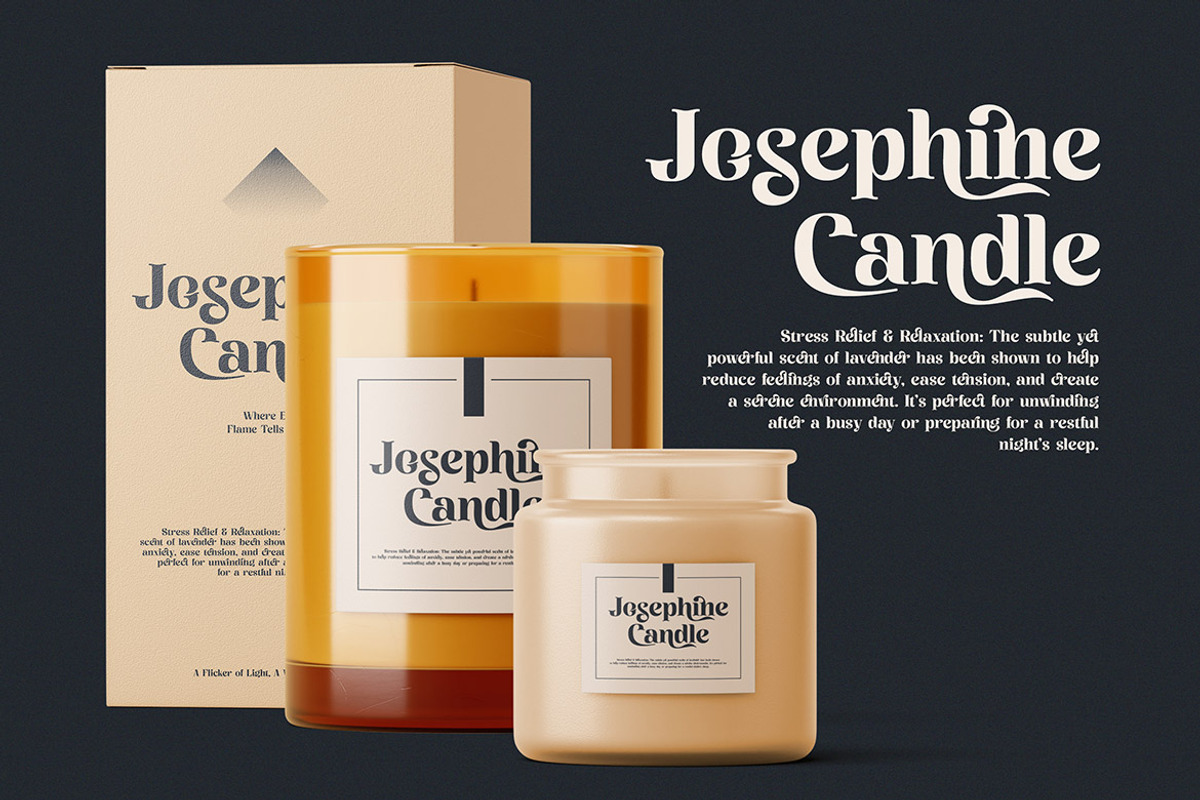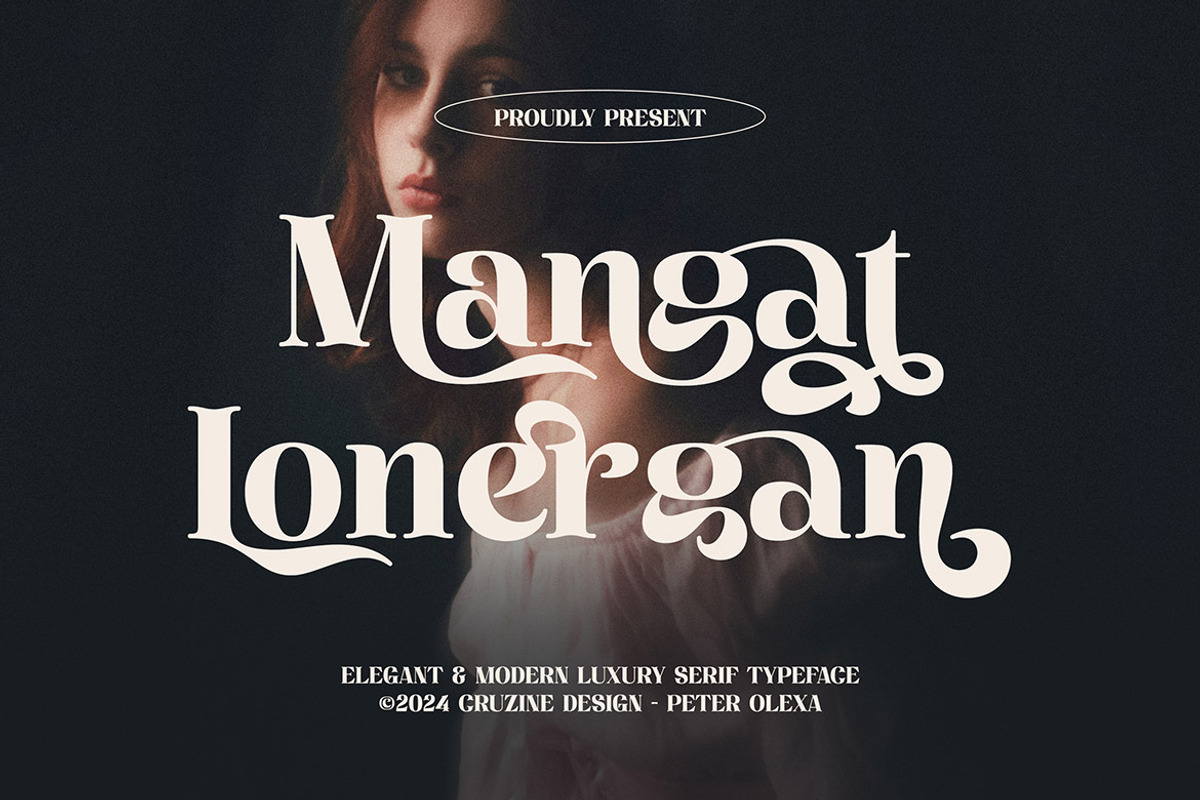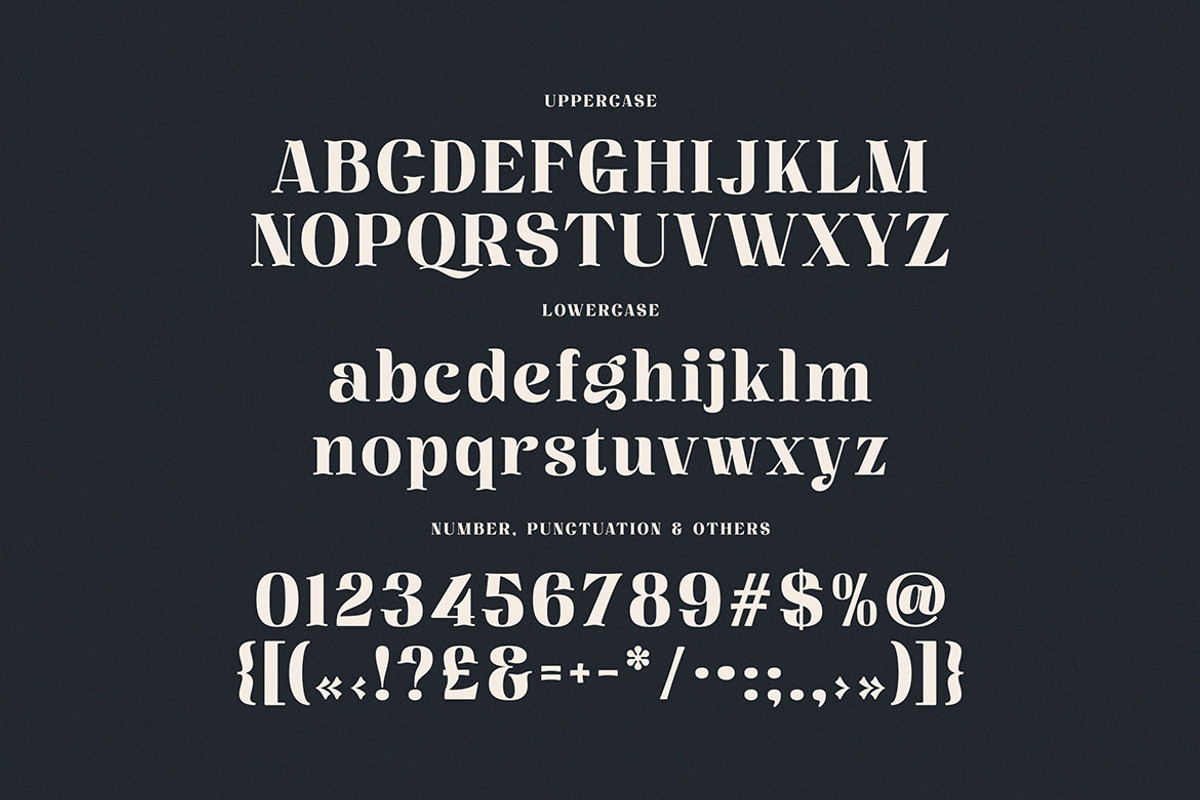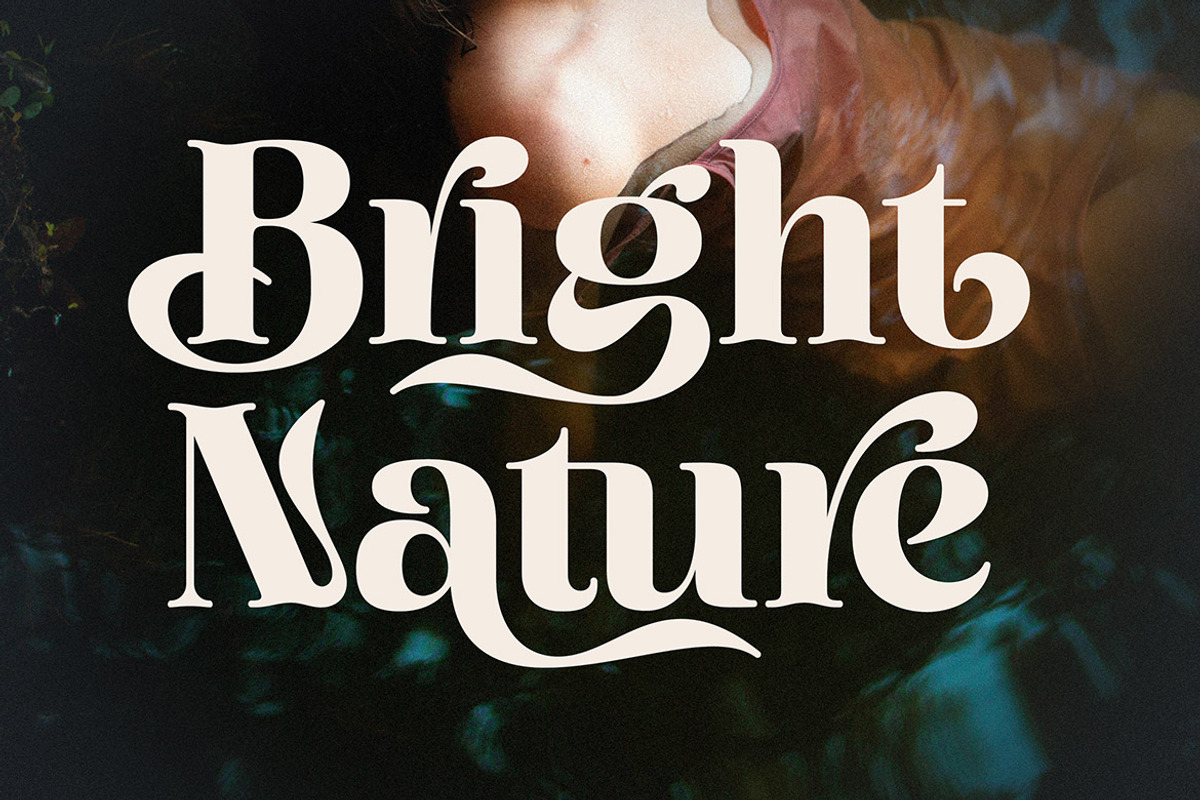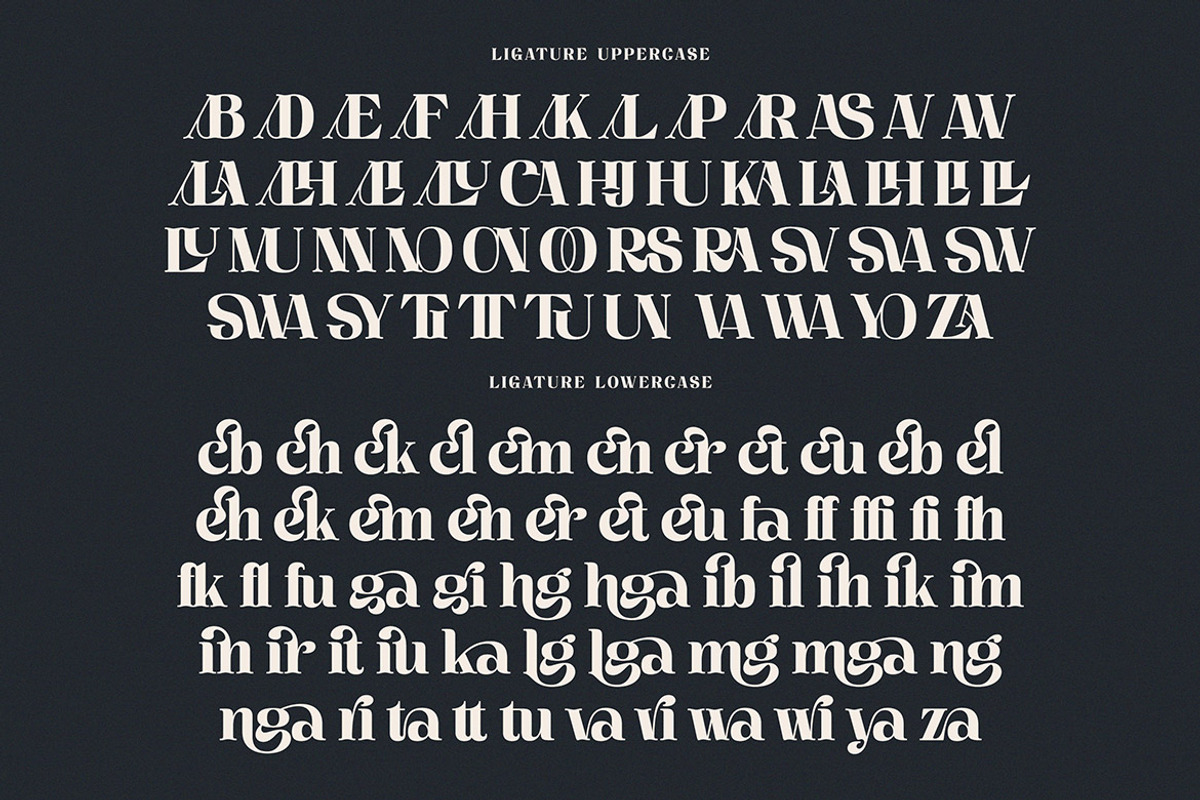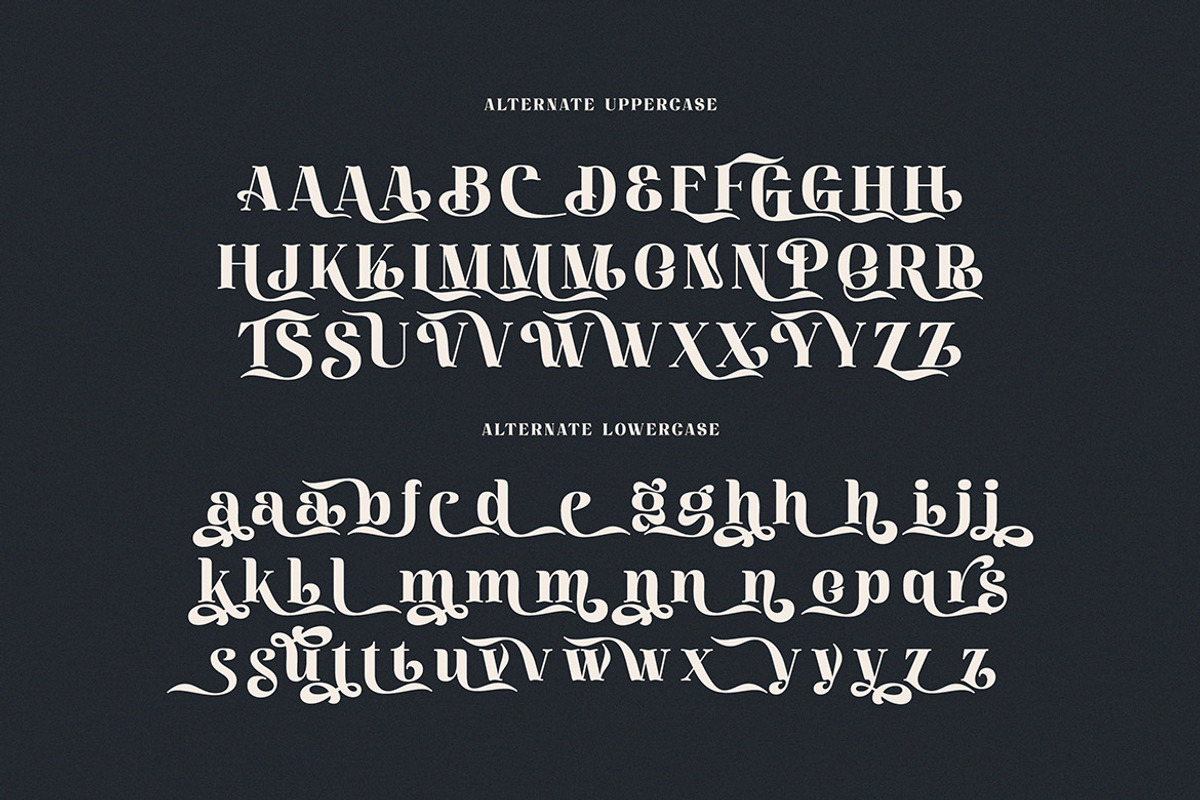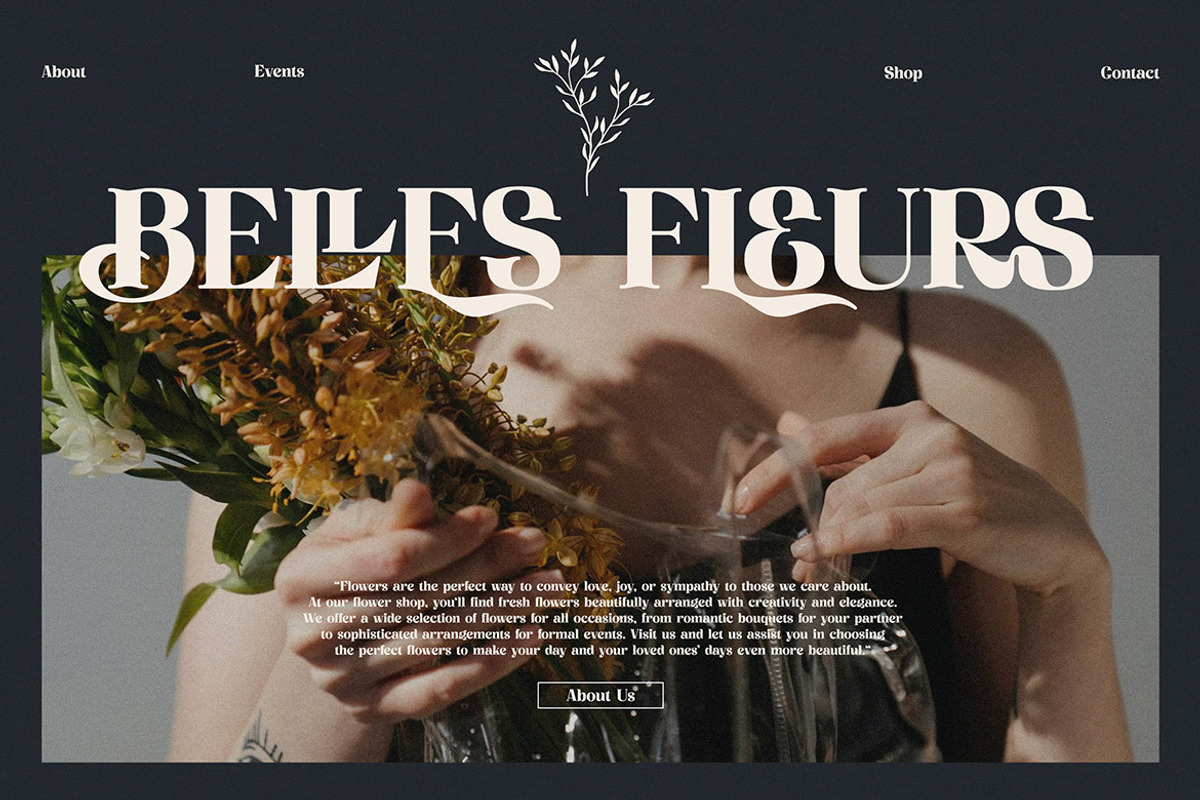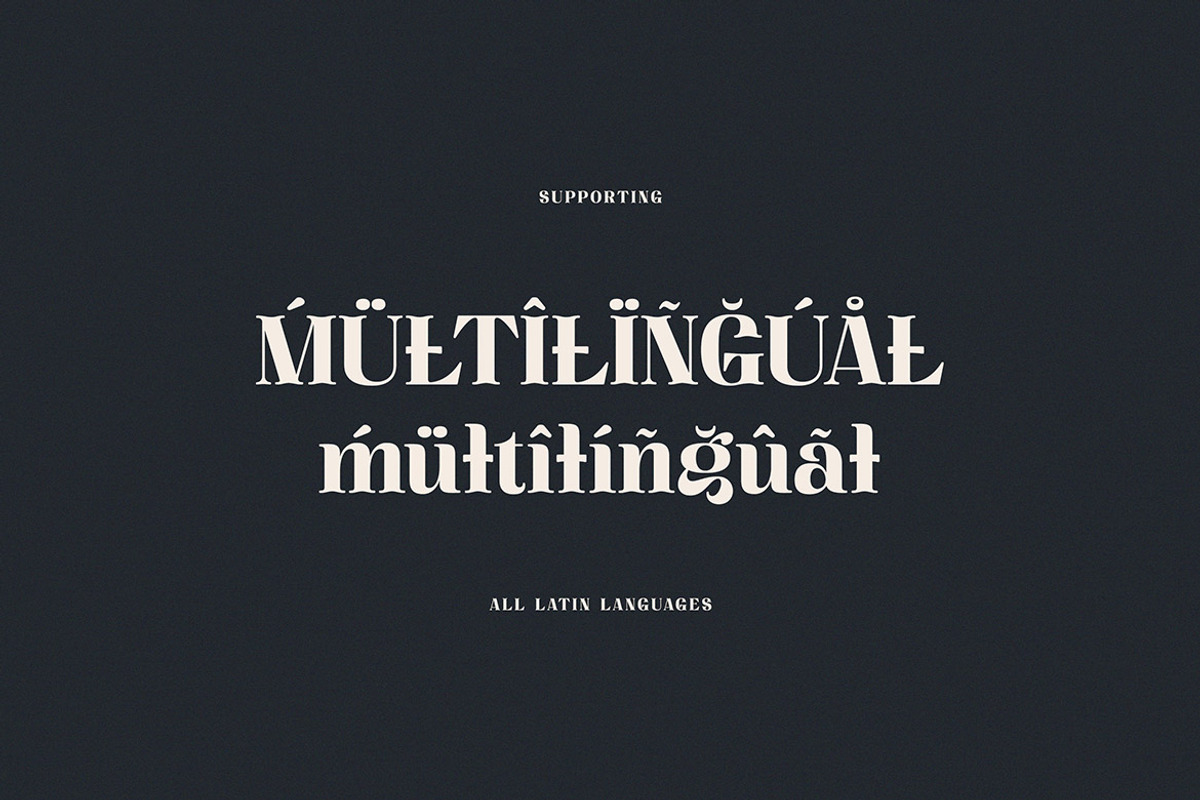
Mangat Lonergan
Trendy, elegant, luxury, creative, sharp & modern style serif font for your new fancy projects. Stylish, romantic and classic style on Mangat Lonergan font will be great for any modern or classy branding project. Lot of alternates and ligatures will help you to create unique and original logo design or website header! Enjoy :)
Alternate characters & lot of ligatures
Great for modern branding projects!